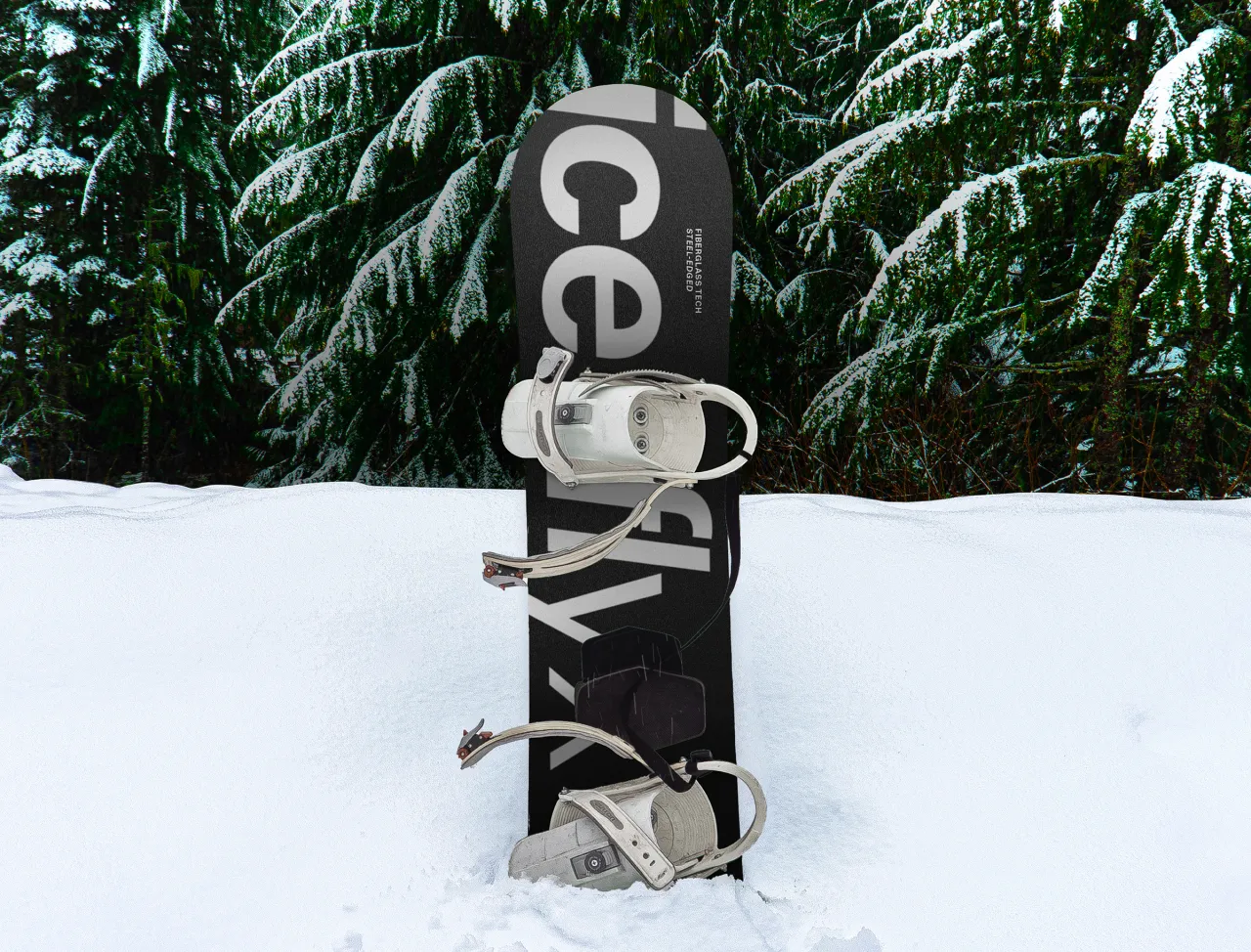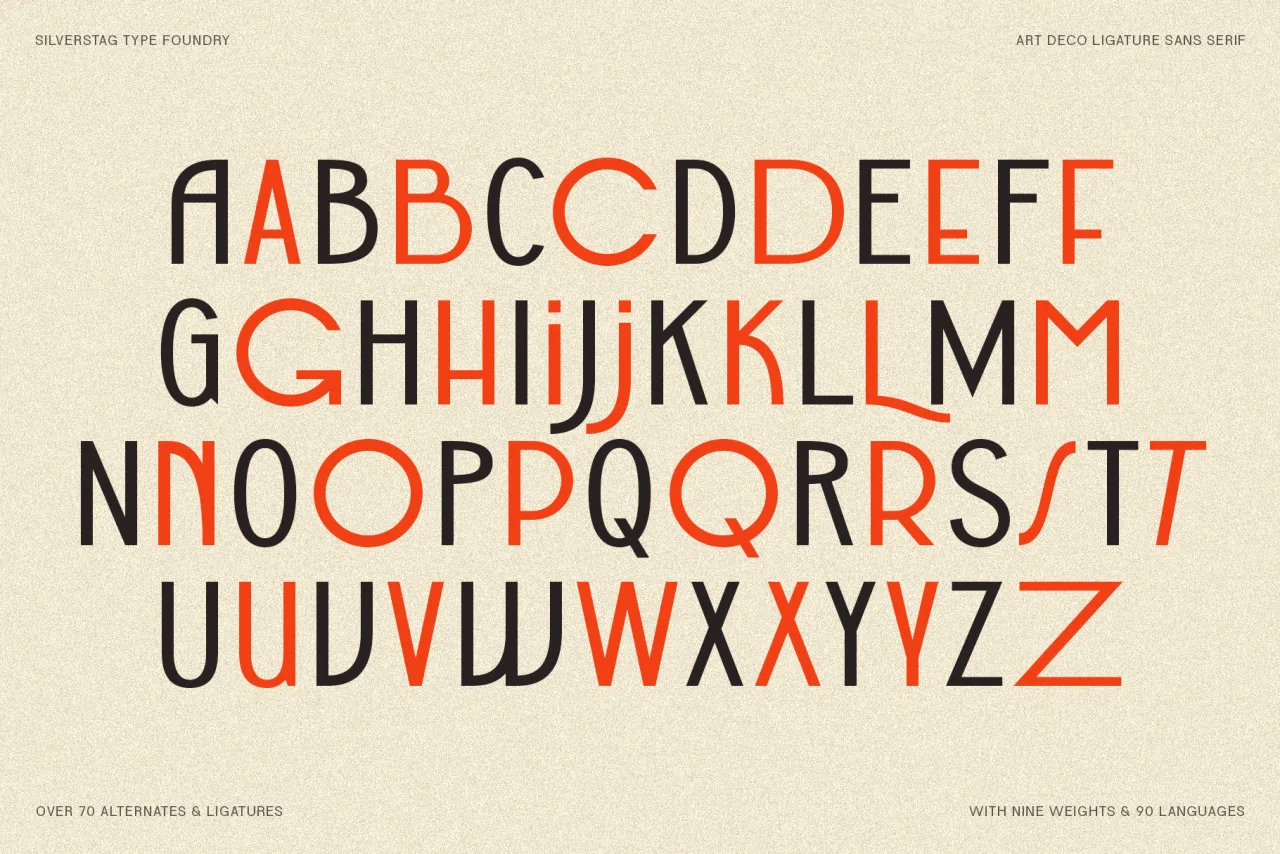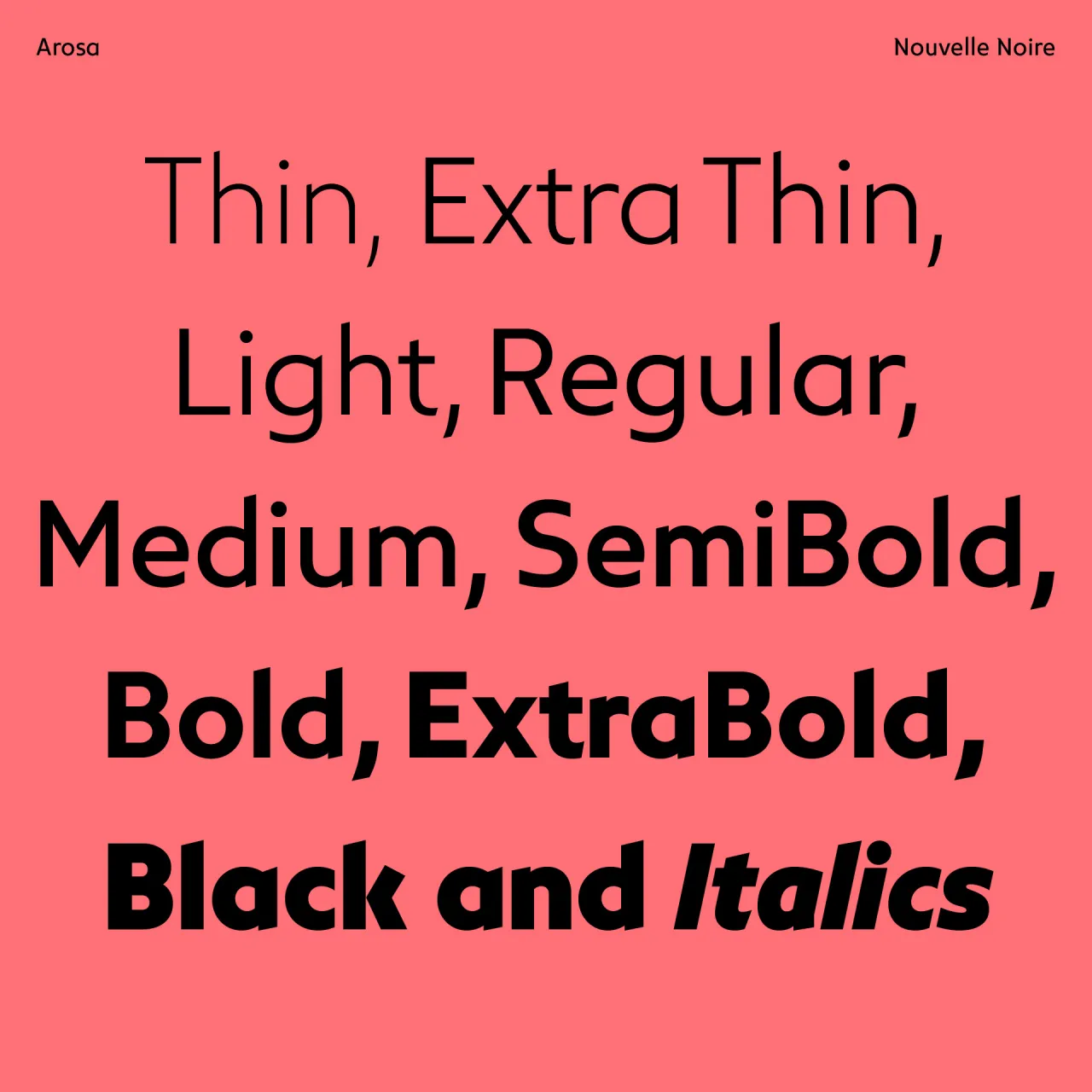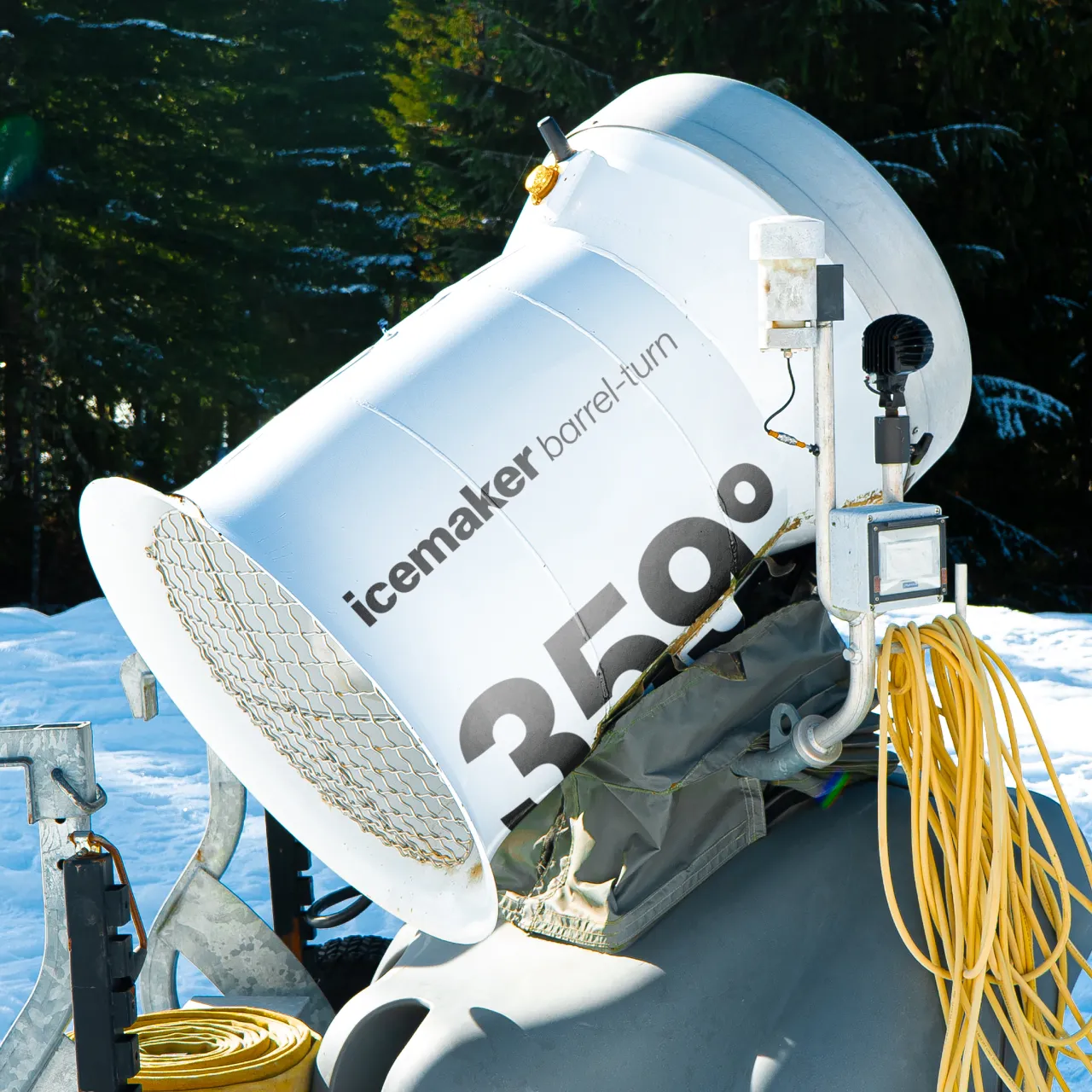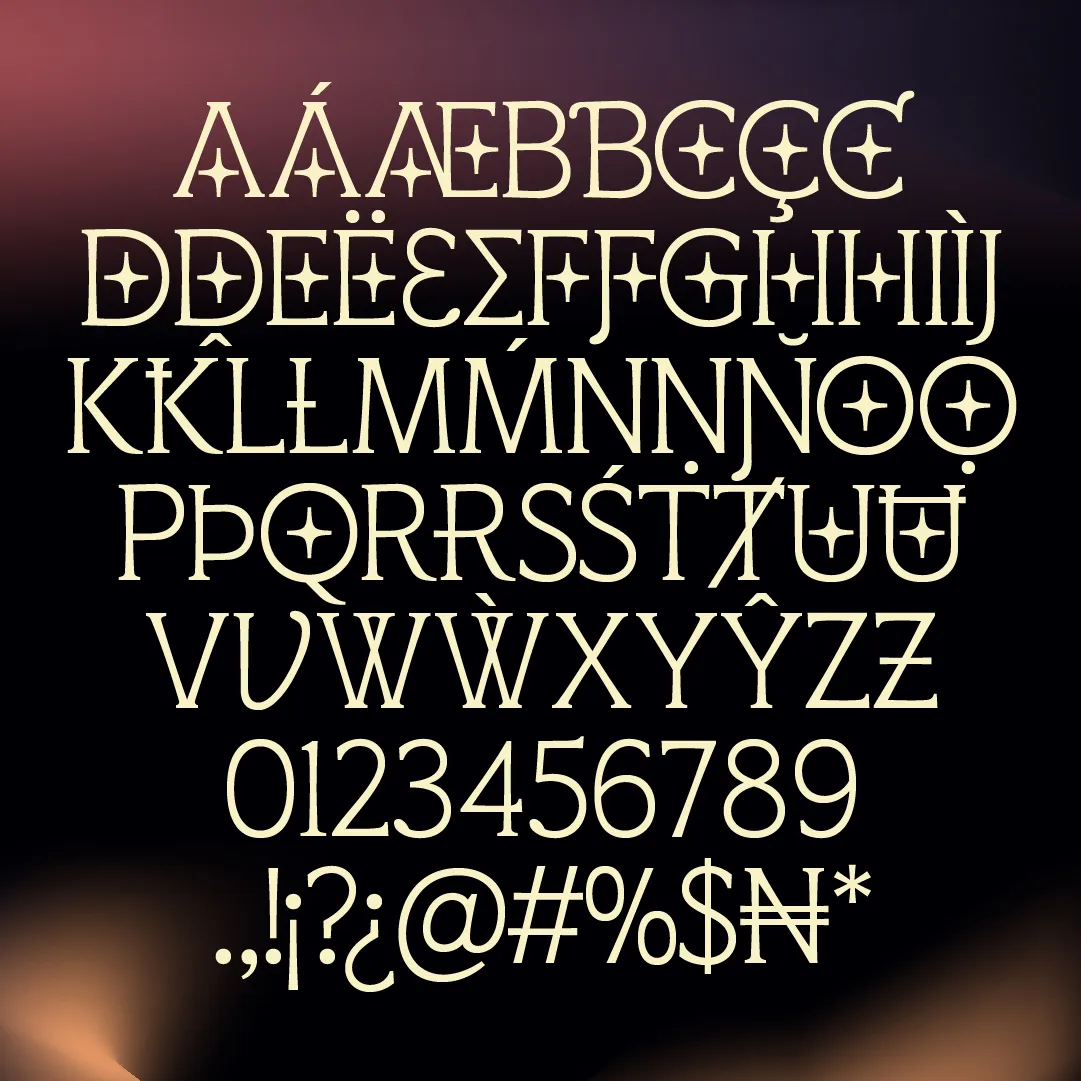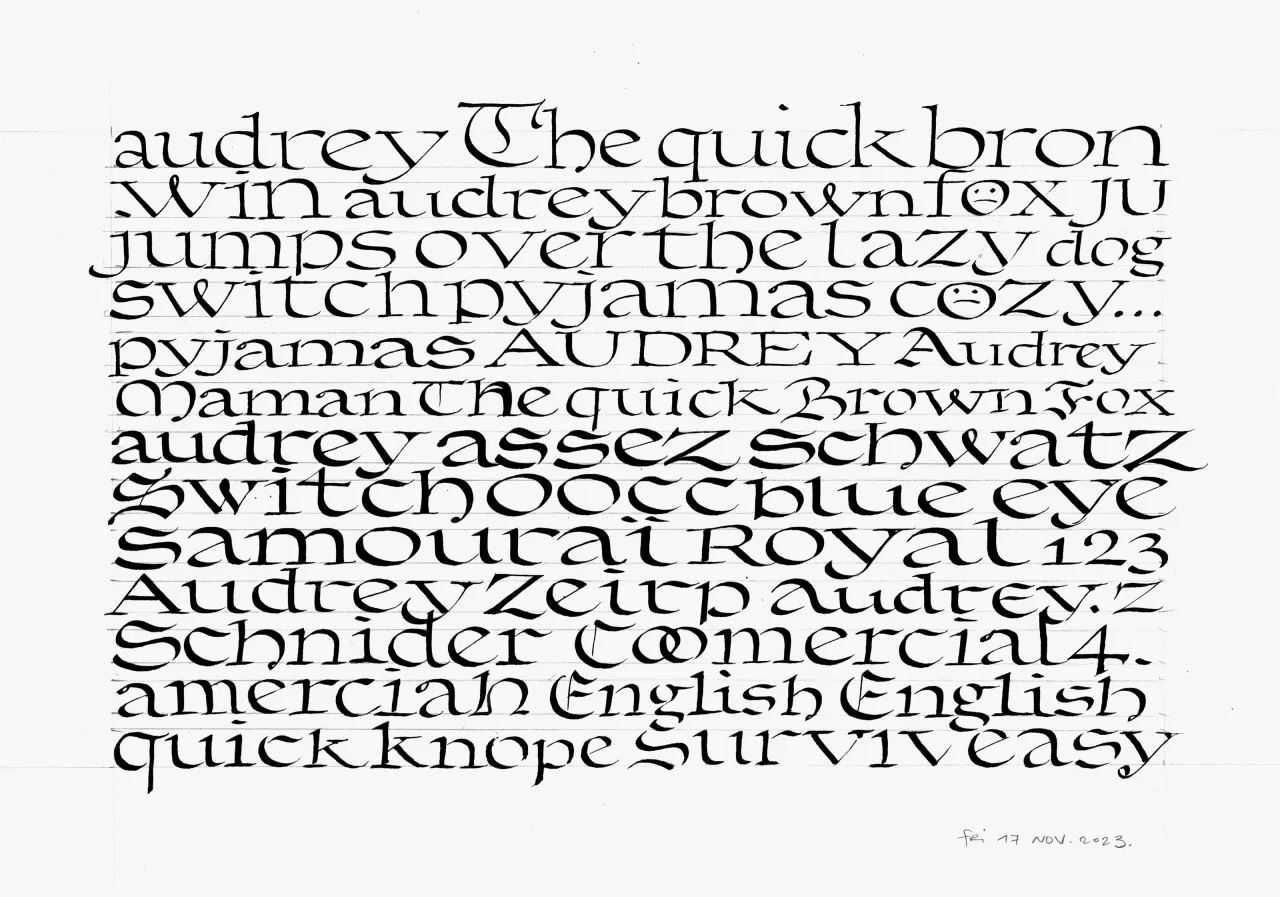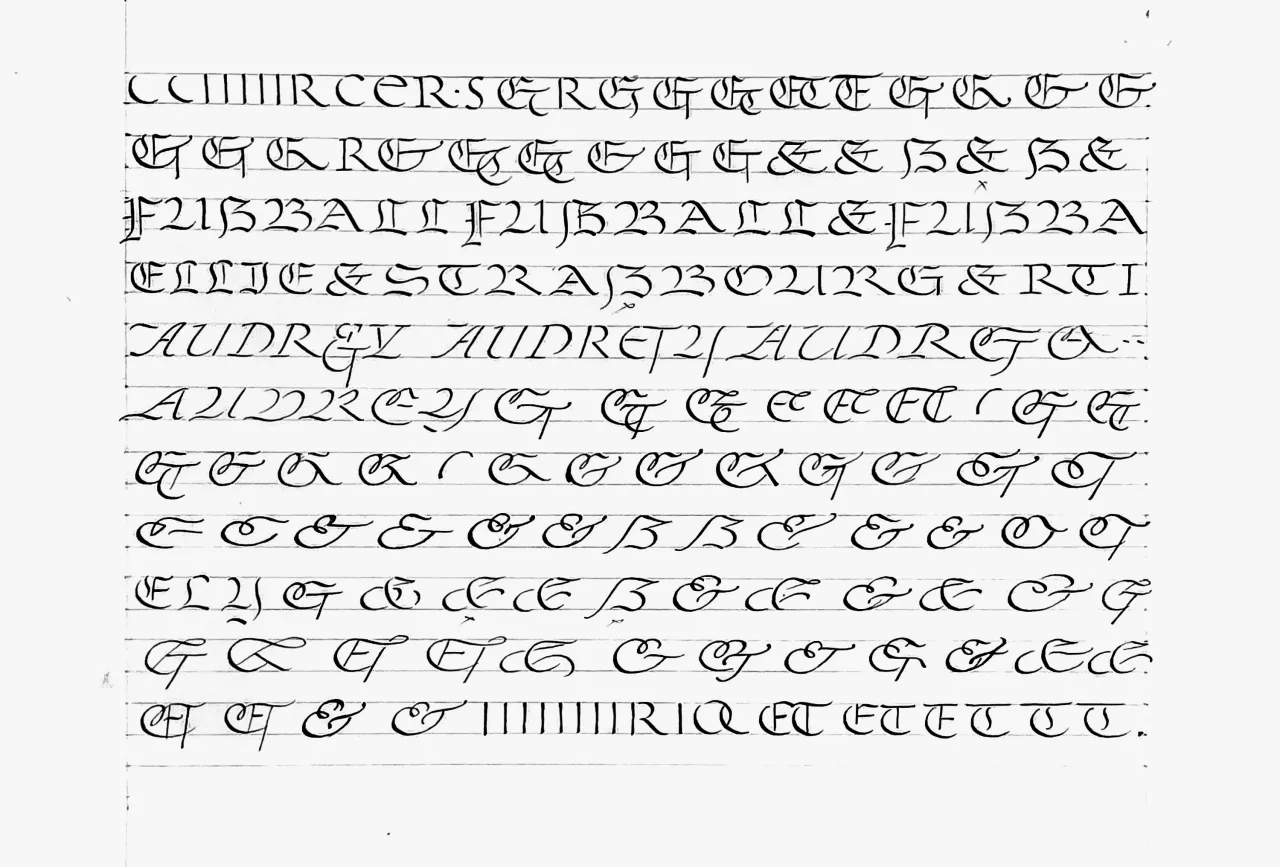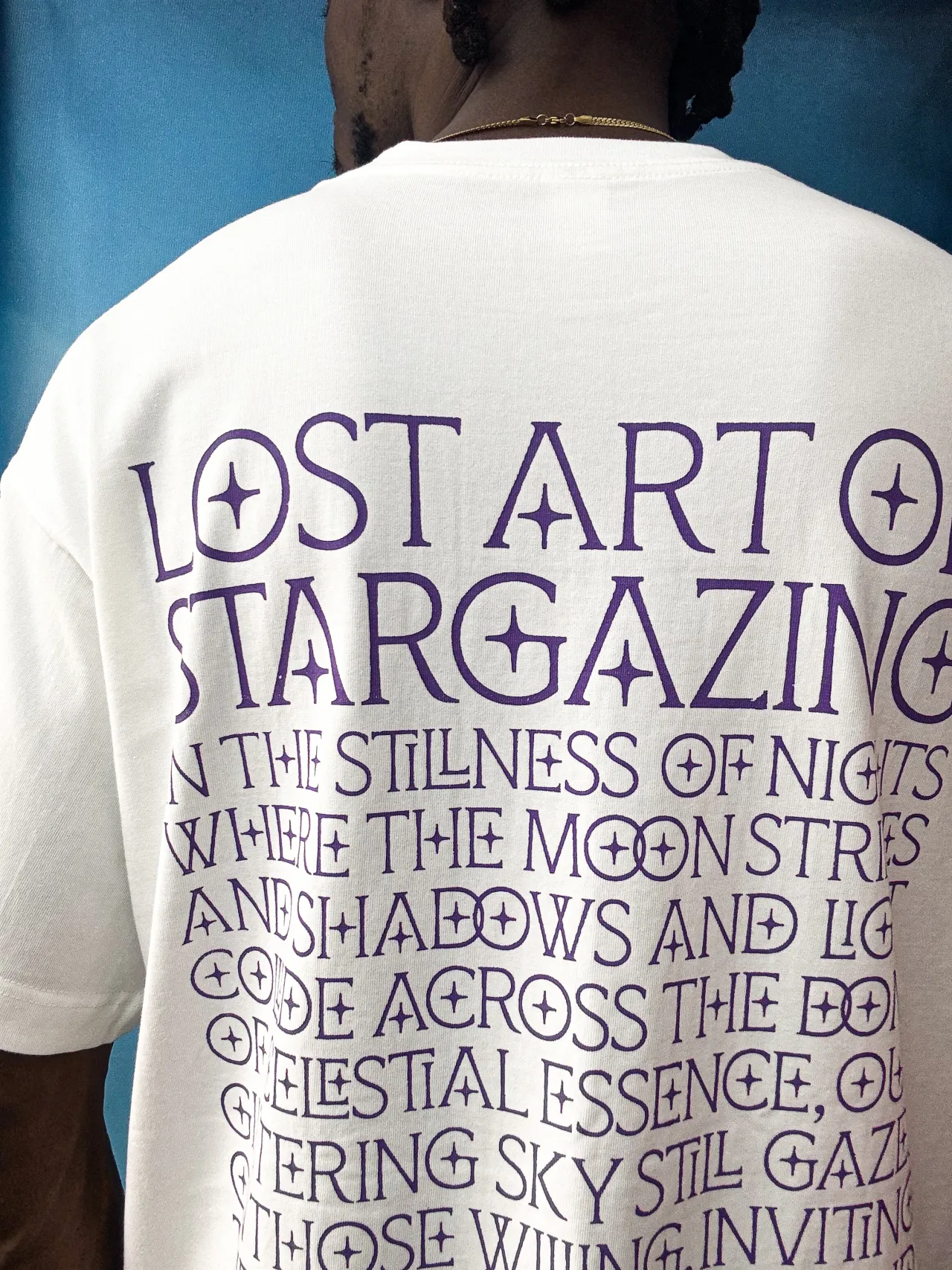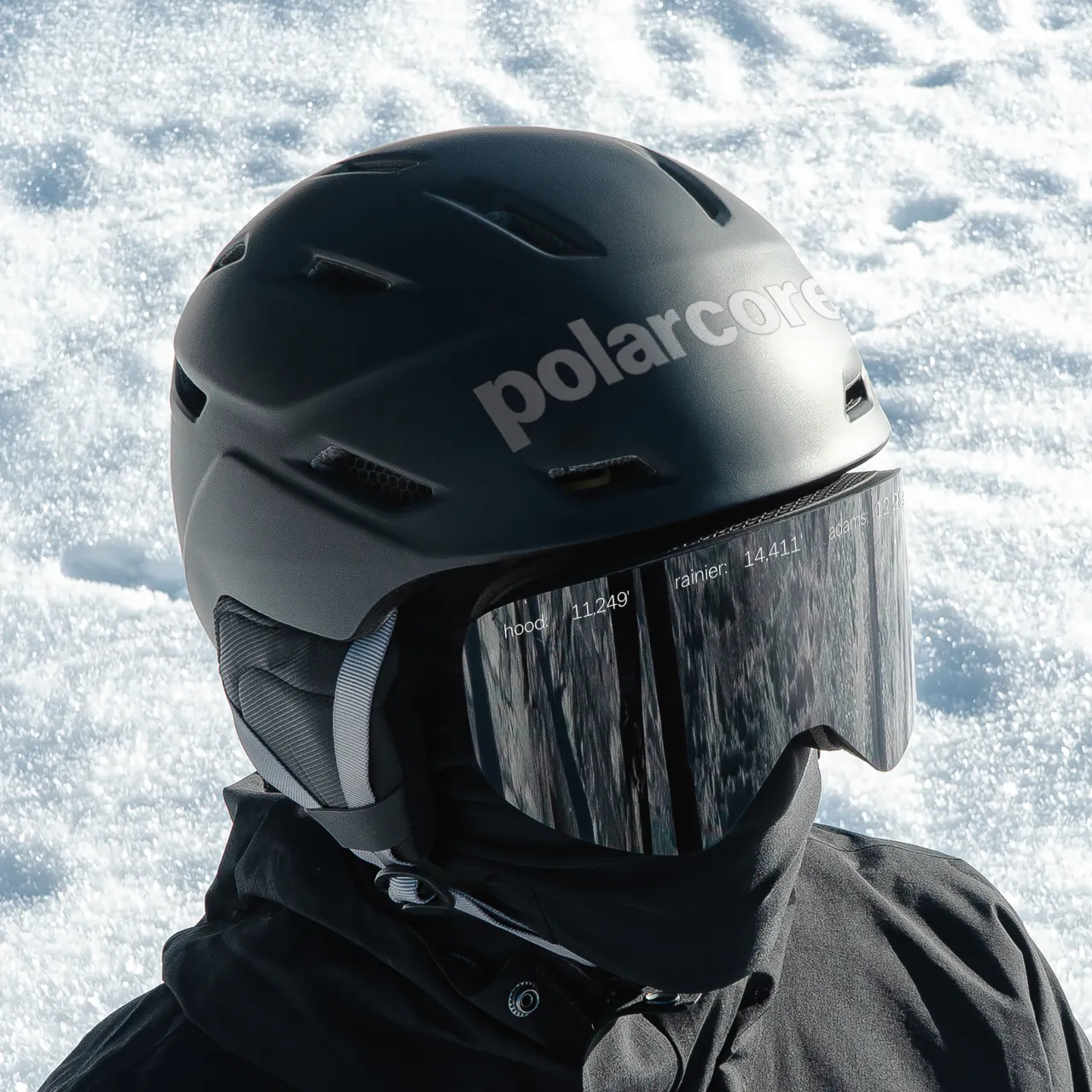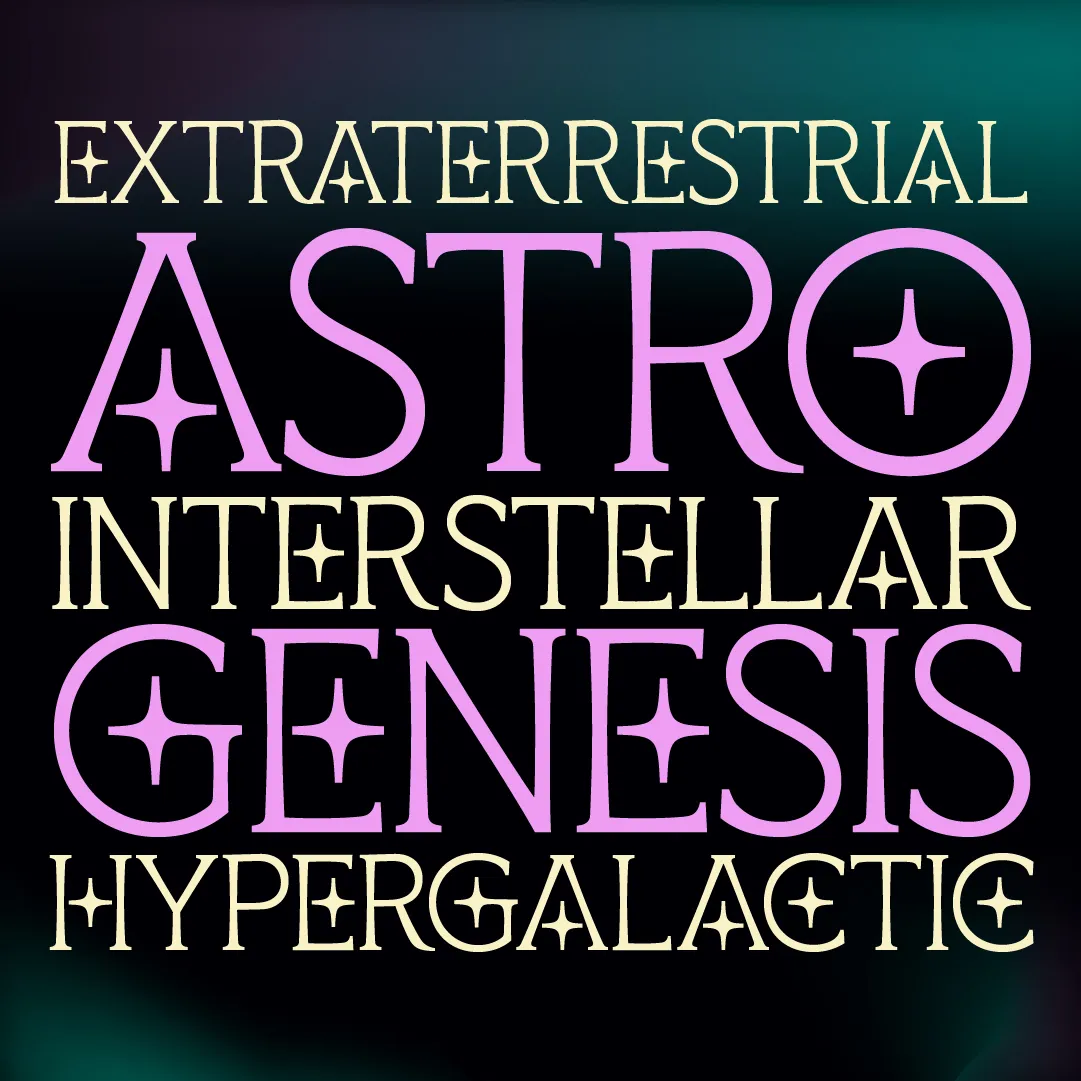
The best new typefaces for January 2025 from leading foundries and designers
From the timeless sophistication of SLTF Bergamot Grotesk to the cultural preservation of Munegascu, 2025 is already shaping up to be a stellar year for type.
Haltung by Order Type Foundry
Wow, where does the time go? We're well into a new year and an astonishing quarter of the way through the 21st century. Meanwhile, the creative scene continues to develop at breakneck speed, and typographic innovation shows no sign of slowing down, either.
This month, type foundries and designers are bringing their A-game with releases that push the boundaries of form, function and artistry. From neo-grotesques with a modern edge to culturally significant designs preserving endangered languages, these typefaces reflect the diversity and depth of contemporary typography.
So read on as we present six of the best new font releases of January 2025. We hope they inspire you to experiment typographically and reinvigorate your design toolkit in the year ahead.
1. Place by Commercial Type
Commercial Type designer Julien Priez's latest typeface marries elegance with versatility. Place is inspired by historical forms, from 16th-century French Renaissance types to Blackletter structures while introducing forward-looking, inventive shapes.
With low stroke contrast and two full sets of capitals—Latin and Blackletter—Place shines as a display face and a workhorse for complex typography. Key to its appeal is sharp, minimal terminals, which ensure adaptability across design contexts. Overall, it's a celebration of the balance between aesthetics and functionality, making it ideal for logotypes, headers, and page navigation.
2. SLTF Bergamot Grotesk by Silverstag Type Foundry
A bold statement in uppercase elegance, SLTF Bergamot Grotesk draws from Art Deco's geometric sophistication. Its nine weights, from Thin to Black, along with more than 70 custom ligatures, make it a standout choice for luxury branding, editorial layouts and digital campaigns.
This typeface combines vintage charm with modern precision and is available for free for both personal and commercial use. Its multilingual support for over 90 languages ensures global versatility, while its sharp lines and distinctive ligatures will help you add flair to any design project.
3. Munegascu by Bruno Bernard
Designed to preserve Monaco's endangered Monégasque language, Munegascu is a triumph of cultural and technological innovation. Developed by Bruno Bernard in collaboration with the Centre Scientifique de Monaco and the Comité National des Traditions Monégasques, it addresses the language's unique tonal accents with an intuitive input system. It's available to download for free.
Rather than starting from scratch, Munegascu was developed as a fork of the open-source typeface Archivo, created by Héctor Gatti and distributed by the Argentine foundry Omnibus Type. To this, an innovative feature was added to overcome the lack of Monégasque-specific characters on standard keyboards. By typing a vertical bar (|) after a vowel, the system automatically transforms it into a tonal accent, correctly positioned above the letter. This simple yet intuitive solution works with most software without requiring special hardware.
Overall, Munegascu bridges tradition and innovation, supporting multiple languages and offering a free, accessible solution for educators, publishers and cultural advocates. A fabulous project that underscores typography's power in safeguarding heritage.
4. Milla by Vivian Dehning
Milla is a labour of love from German designer Vivian Dehning. It blends classical letterforms with hand-drawn details, evoking the warmth of handwriting and the texture of letterpress. Inspired by music, botany and rococo ornamentation, Milla strikes a perfect balance between timelessness and individuality.
With its robust glyph set supporting major Latin languages and succinct ligatures, Milla is as versatile as it is expressive. Whether used for editorial design or branding, this typeface offers a natural, authentic feel.
5. Haltung by Order Type Foundry
Drawing inspiration from mid-century neo-grotesques such as Helvetica and Univers, Haltung reimagines the genre with added "air" in its letterforms. Designed by Joe Moore, the typeface combines influences from Walter Käch, Emil Ruder and Adrien Frutiger, resulting in a refined, contemporary sans serif.
Its open apertures and subtle contrast create a sense of lightness, while its roots in classical Roman lettering bring humanist warmth. Haltung is a sophisticated tool for modern graphic design, elegantly bridging past and present.
6. Starborne by Chisaokwu Joboson
Inspired by the cosmos, Starborne is a decorative serif that dazzles with star-like details and intricate ligatures. This all-caps typeface supports over 160 languages and would be a good option for editorial design, branding and poster work.
The NN Arosa family is conceived as a superfamily, with three distinct versions—Text, Display, and Script—to be released over time. The Text version refines intricate characteristics for versatility and legibility, making it suitable for a broad range of typographic situations. With support for central and eastern European languages and meticulously crafted small caps, it celebrates Swiss heritage while offering a fresh perspective on contemporary design.